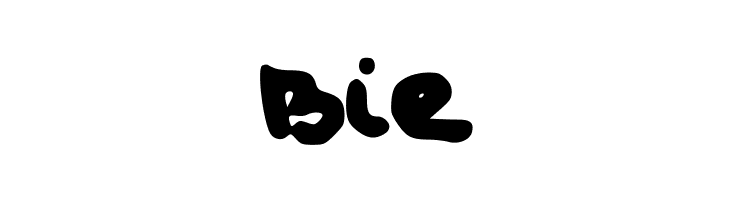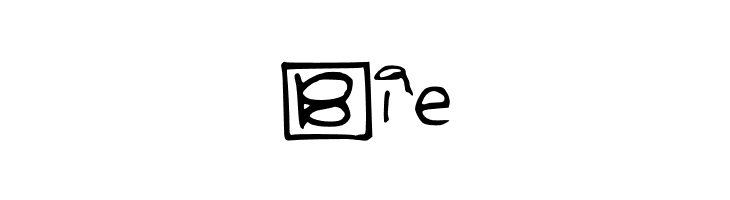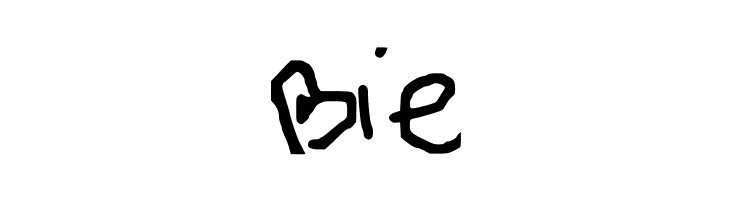
A playful, handwritten font with smooth curves and a casual style.
A casual, handwritten font with a playful and personal touch.
A playful, handcrafted font with bold, rounded uppercase letters.
A playful and casual handwritten font with a dynamic, informal style.
A playful, bold font with thick, rounded, hand-drawn characters.
A playful and whimsical font with rounded, irregular letterforms.
A playful, informal handwritten font with a casual and friendly style.
A playful, bold, and hand-drawn font with rounded edges.
A playful, casual handwritten font with irregular strokes and an organic flow.
A playful, bold, hand-drawn font with a casual and friendly appearance.
A playful, hand-drawn font with bold, irregular strokes and a dynamic appearance.
A playful, handwritten font with dynamic and fluid strokes.
A bold, playful handwritten font with rounded, consistent strokes.
A playful, bold, and rounded font with a hand-drawn aesthetic.
A playful, handwritten font with irregular, marker-like strokes.